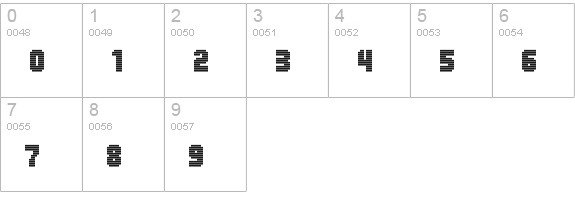
Balls on the rampage Font Details
Balls on the Rampage font is a playful and dynamic typeface that exudes energy and movement. With its bold and rounded shapes, this font is perfect for adding a fun and lively touch to your designs. Whether you're creating posters, logos, or social media graphics, Balls on the Rampage will make your text pop and stand out. This font is available for free download at FontsMarket.com, making it easily accessible for all designers and creatives looking to add a touch of whimsy to their projects. So why wait? Grab your copy of Balls on the Rampage font today and let your creativity run wild!